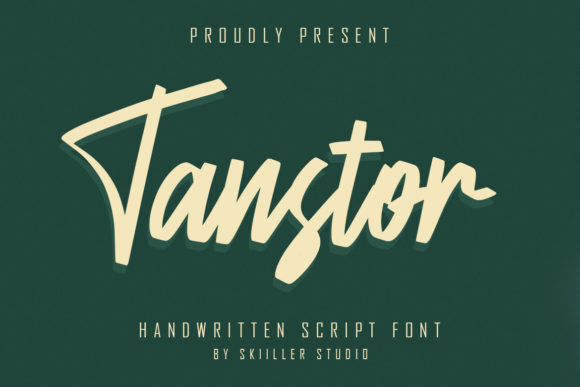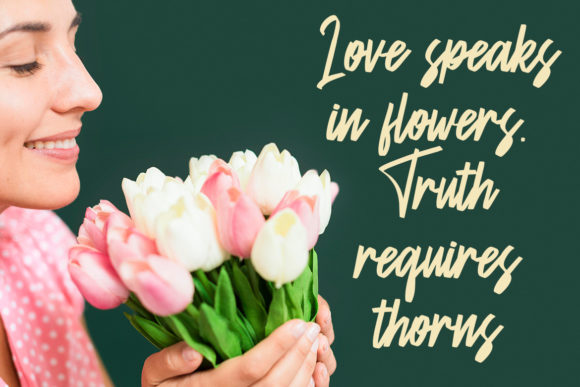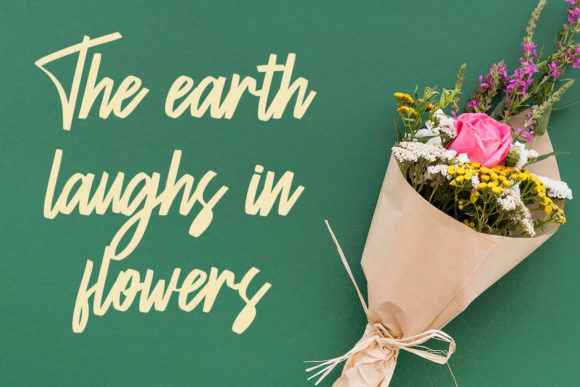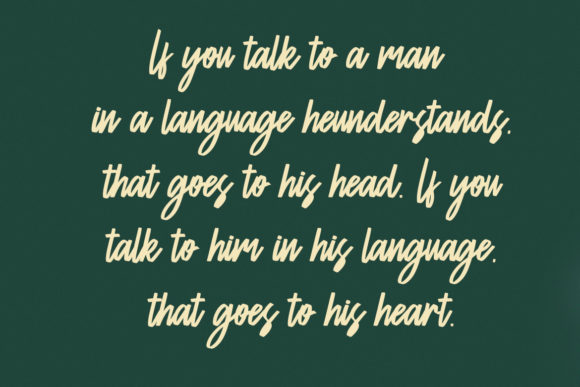
Transtor Font
About Transtor Font
Transtor is a lovely, modern handwritten font. It maintains its classy calligraphic influences while feeling contemporary and fresh. Fall in love with it and bring your projects to the highest levels!